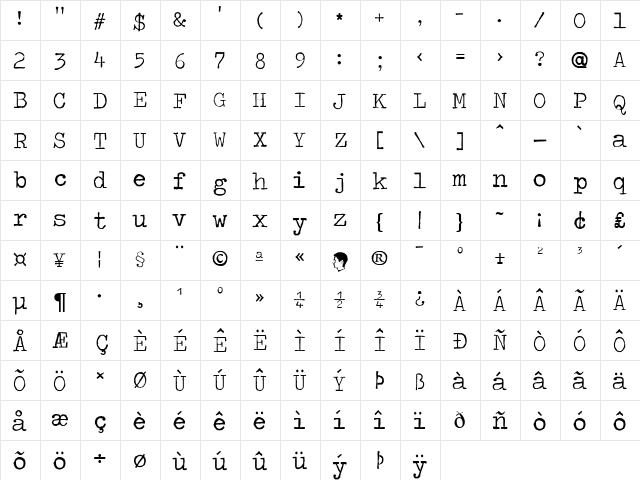
Traveling _Typewriter Regular
| Foundry | Carl Krull |
| Designer | Carl Krull |
Design Context for Traveling _Typewriter Typeface
Traveling _Typewriter uses fixed-width spacing throughout, giving it the structured, systematic character associated with coding environments and technical documentation.
Pro Tip: Use Traveling _Typewriter with slightly increased line-height for extended reading — fixed-width spacing can feel dense in longer passages without extra breathing room.